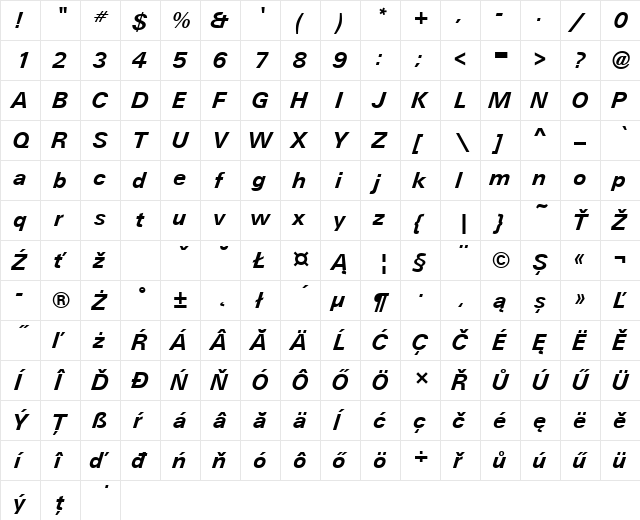
UnitusTEE Bold Italic Font Preview
Design Context for UnitusTEE Typeface
UnitusTEE takes a measured approach to typography — its balanced proportions and neutral character make it a reliable workhorse for both digital and print work. Its italic angle brings a sense of urgency and motion to the letterforms. The heavy weight commands attention and anchors typographic hierarchies.
Pro Tip: Try UnitusTEE for annotation and caption copy alongside an upright companion — the contrast in angle creates a dynamic but ordered typographic system.